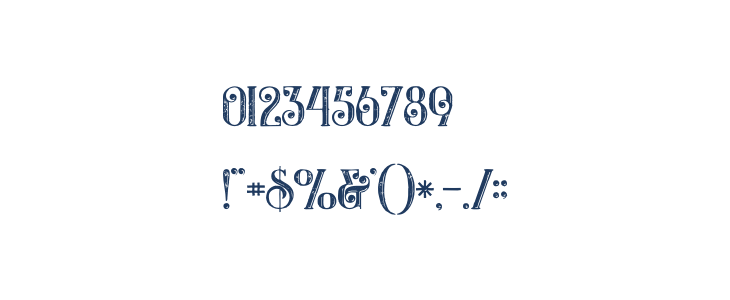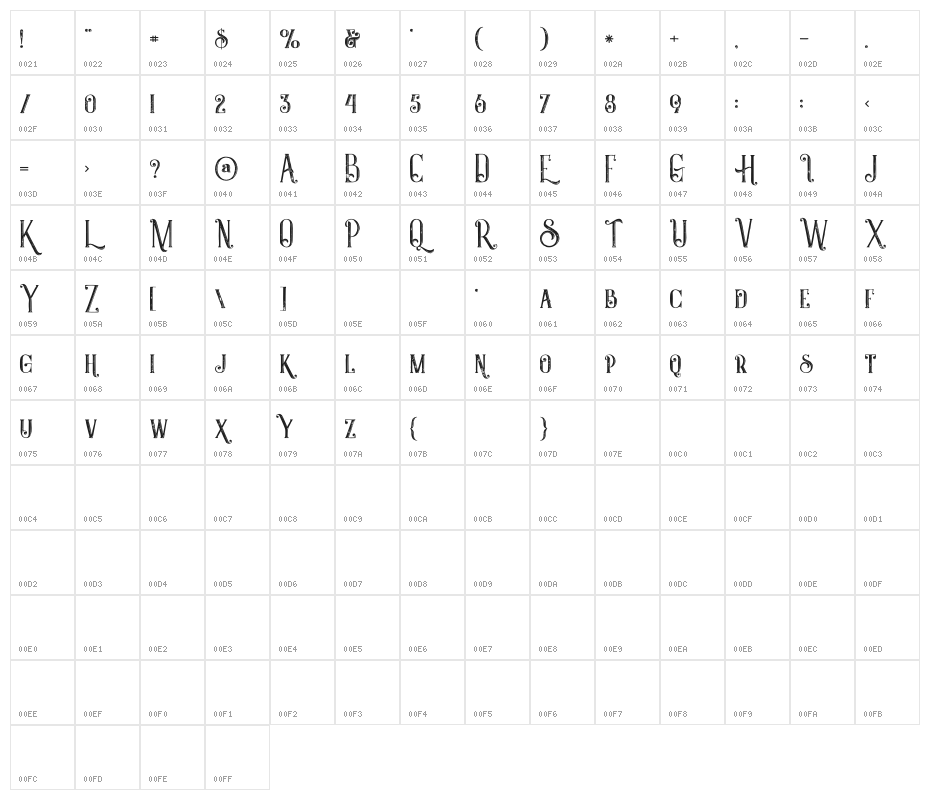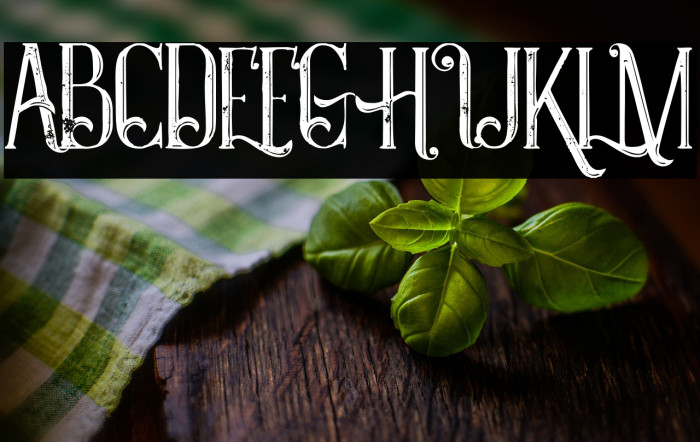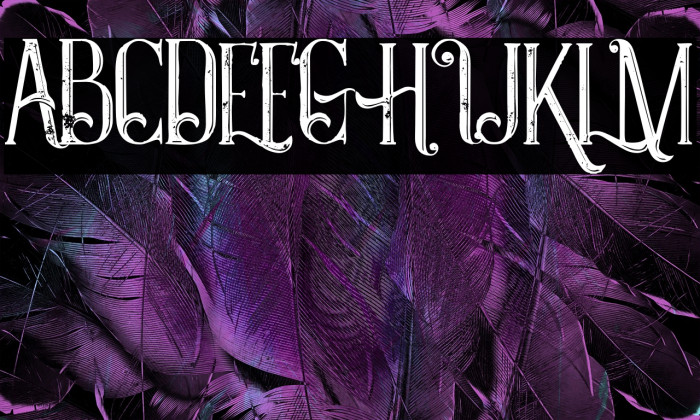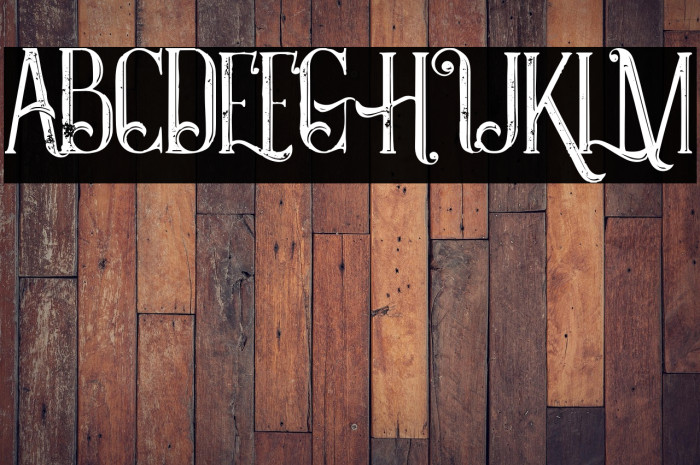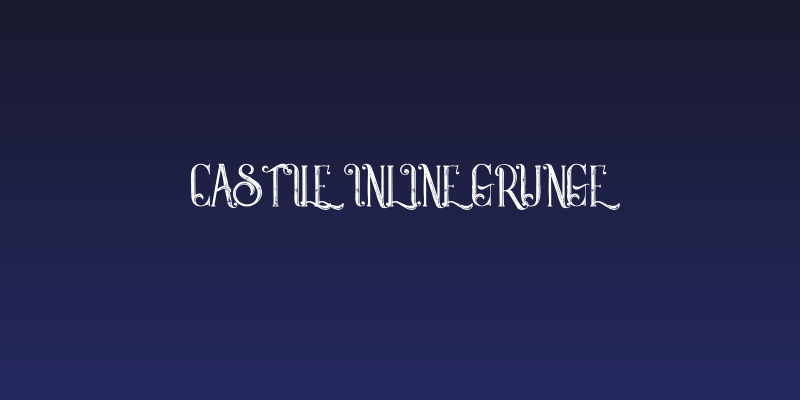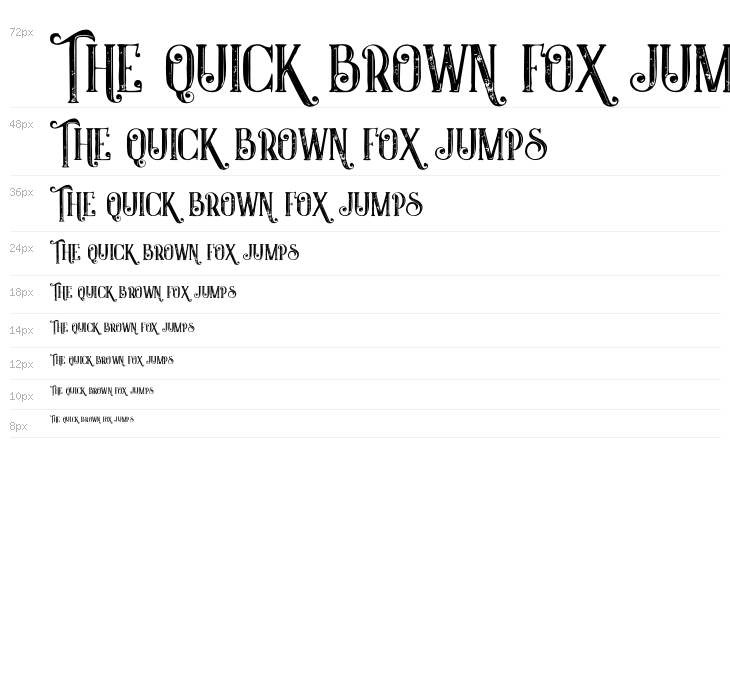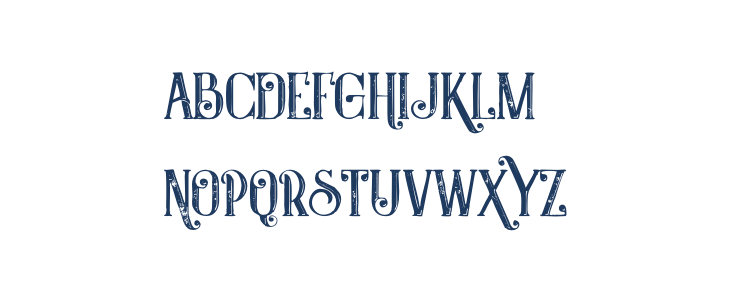
Castile Inline Grunge Font
Castile Inline Grunge Description
This font features a distinctive grunge style with an inline design that adds a vintage and worn look to each character. The uppercase and lowercase letters are adorned with subtle distressing, giving them a textured appearance. The serifs are pronounced, adding a classic touch to the overall design. The numbers and special characters follow the same grunge aesthetic, making them cohesive with the alphabet. This font is ideal for projects that require a rustic or antique feel, such as posters, album covers, or branding for artisanal products.